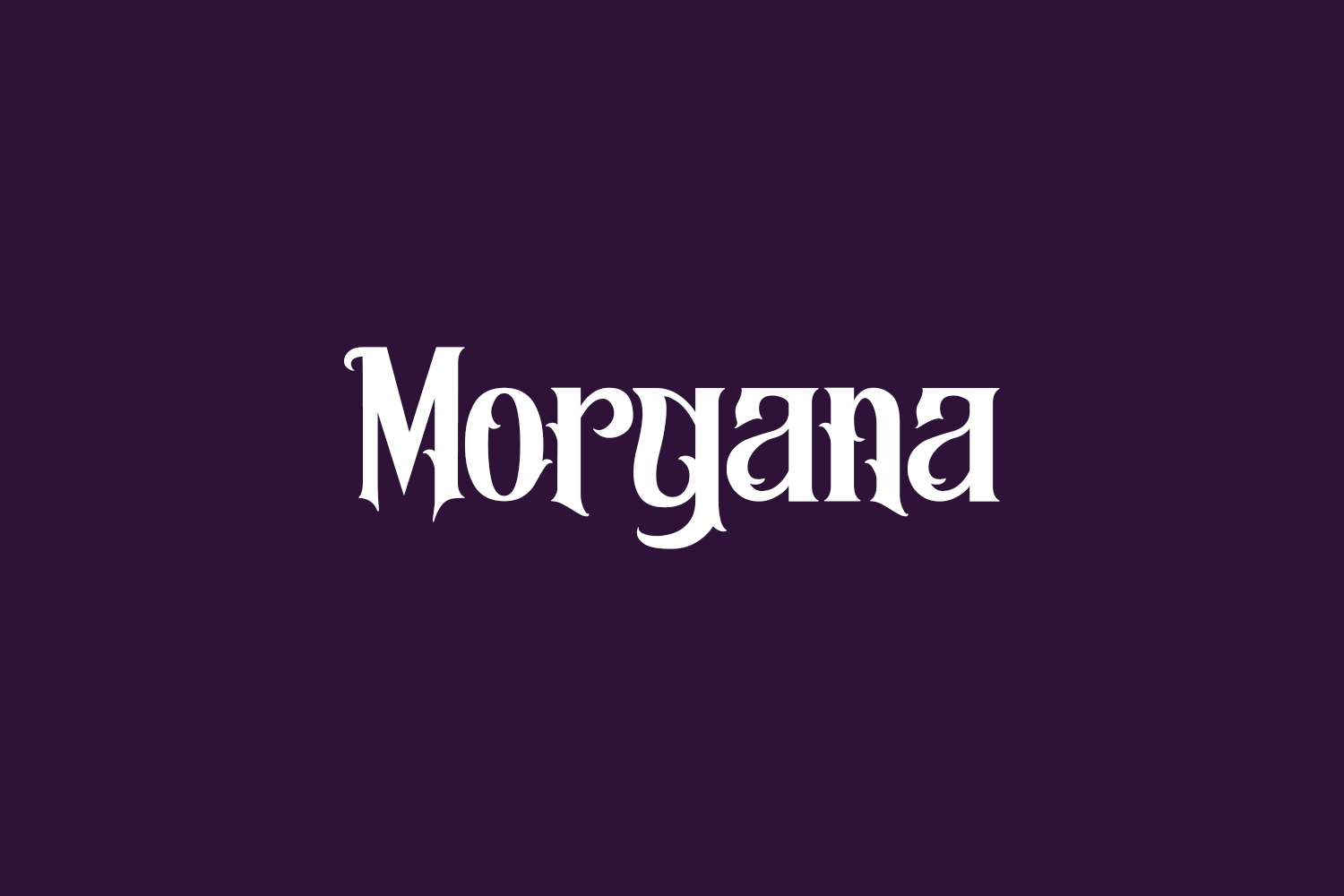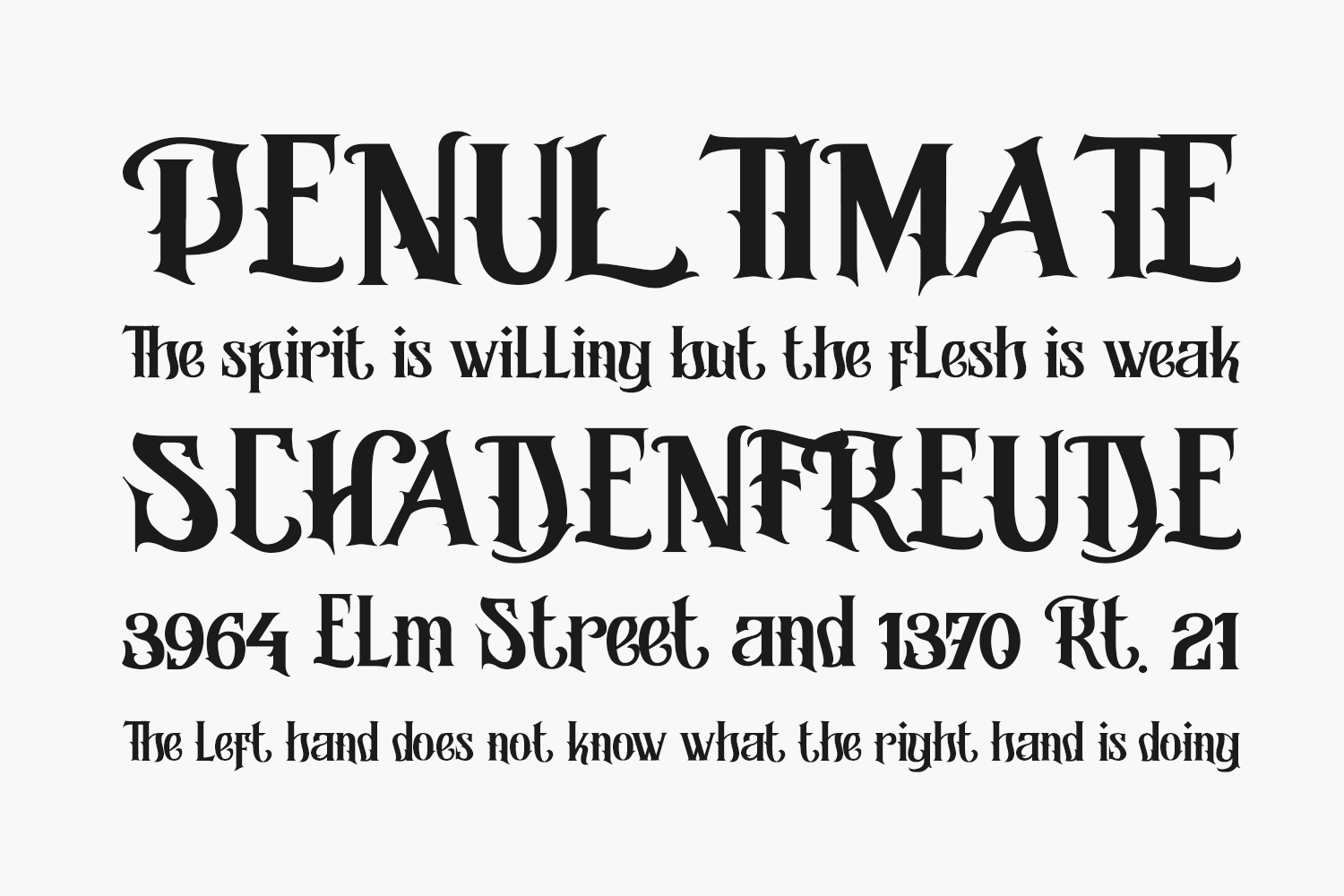
Morgana Free Font feels equally charming and elegant. This display font will elevate a wide range of design projects to the highest level, be it branding, headings, wedding designs, invitations, signatures, logos, labels, and much more. Morgana Free Font was designed by Typotopia Studio and is free for personal use only. Please purchase the full version for commercial use.